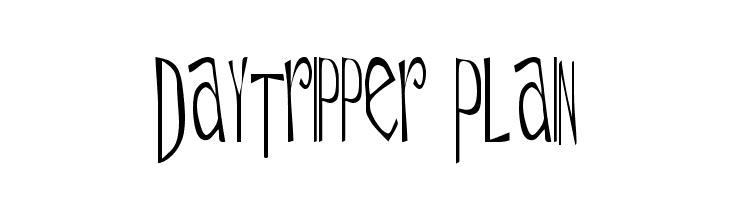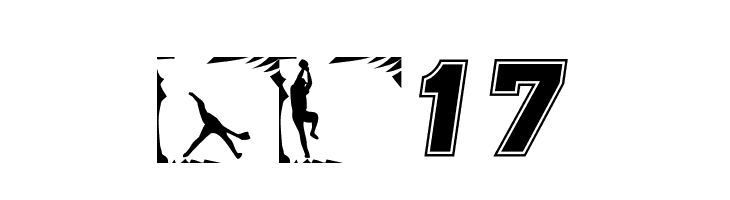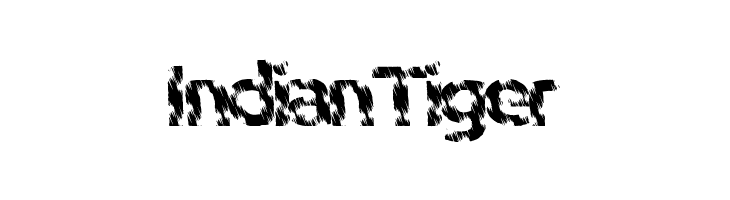
A bold, Gothic-style font with intricate, angular detailing.
A playful, handwritten font with smooth, rounded edges and a casual style.
A bold, brush-textured font with a rugged and dynamic style.
A bold, flowing script font with elegant, interconnected strokes and high contrast.
A dynamic, backslanted font with tall, narrow characters and consistent stroke thickness.
A bold, italic, dotted font with a modern and playful style.
A playful, eclectic font with a mix of bold, outlined, and decorative characters.
A bold, geometric font with sharp, angular lines and a futuristic style.